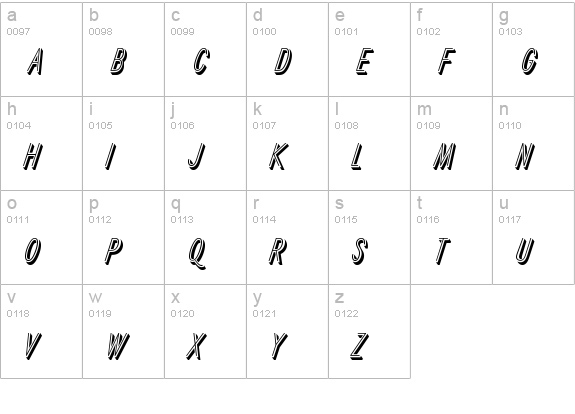
Refracta Std Font Details
Refracta Std font is a stunning display typeface that effortlessly combines elegance with a touch of modernity. Its clean lines and unique letterforms make it perfect for a wide range of design projects, from logos and branding to headlines and packaging. With a generous x-height and balanced proportions, Refracta Std font commands attention without overwhelming the viewer. Each character is meticulously crafted, ensuring legibility even at smaller sizes. The subtle curves and sharp edges create a harmonious contrast, adding a dynamic element to any composition. This versatile font family includes a variety of weights and styles, allowing for endless creative possibilities. Whether you're aiming for a bold and impactful look or a more refined and sophisticated design, Refracta Std has got you covered. One of the best parts about Refracta Std font is that it is completely free. Yes, you read that right - this exceptional typeface is available to download at FontsMarket.com without any cost. So, you can elevate your designs without breaking the bank. So why wait? Discover the beauty and versatility of Refracta Std font today. Download it for free at FontsMarket.com and let your creativity soar to new heights.